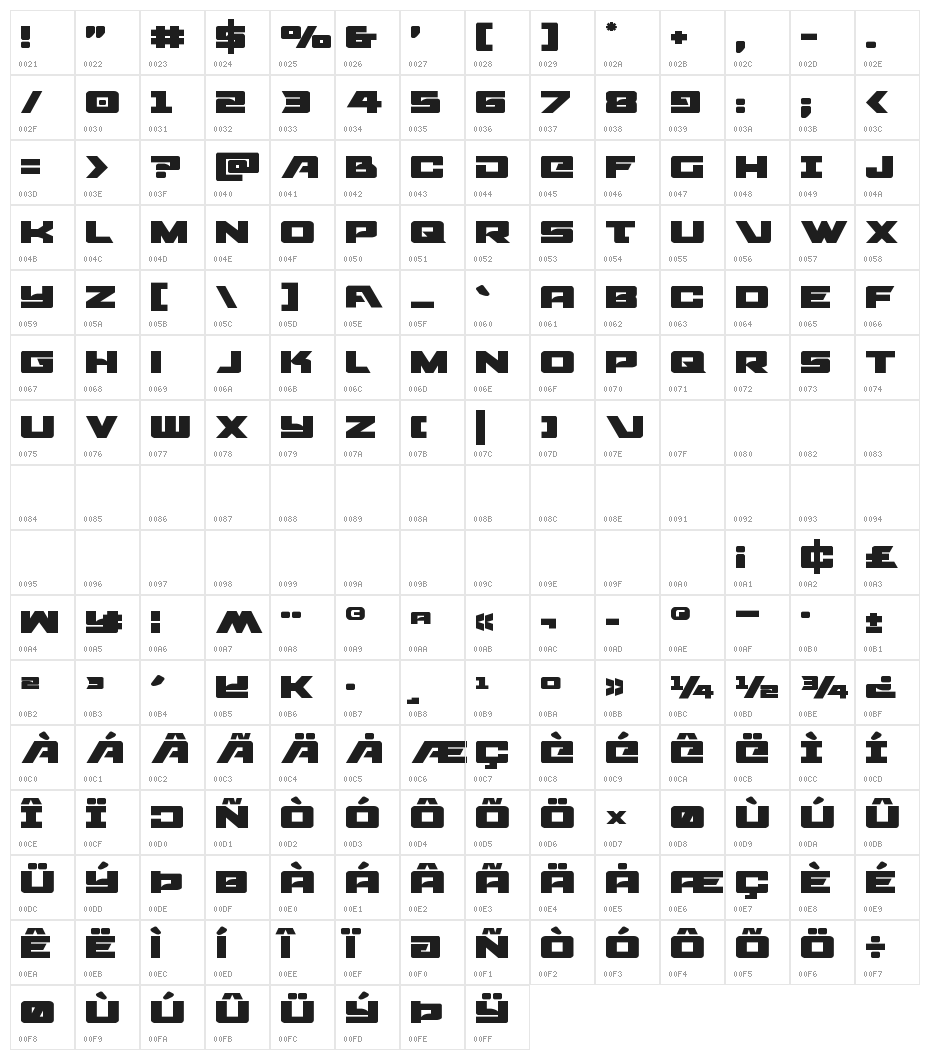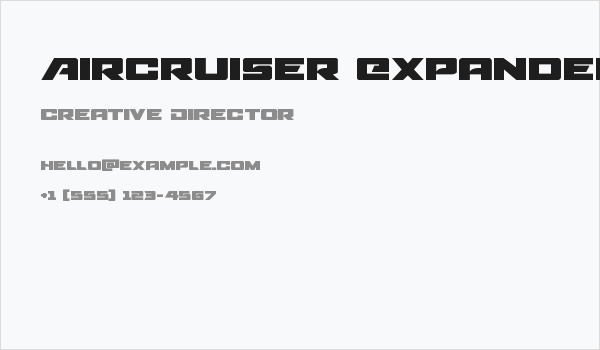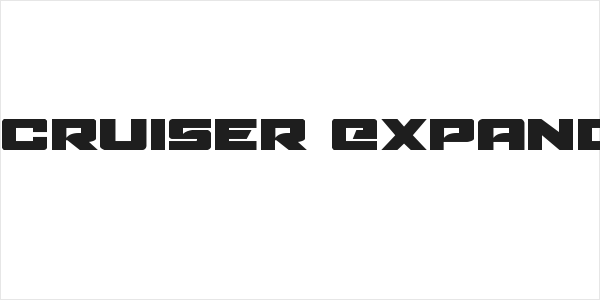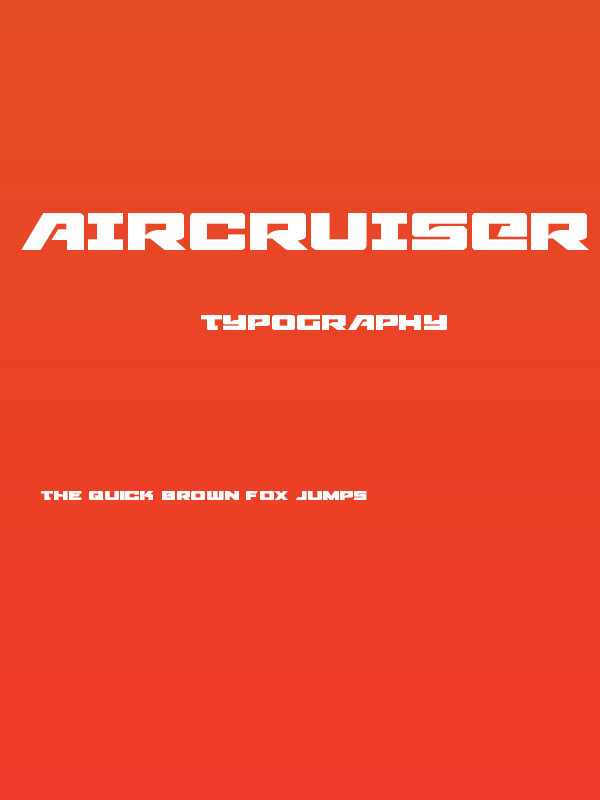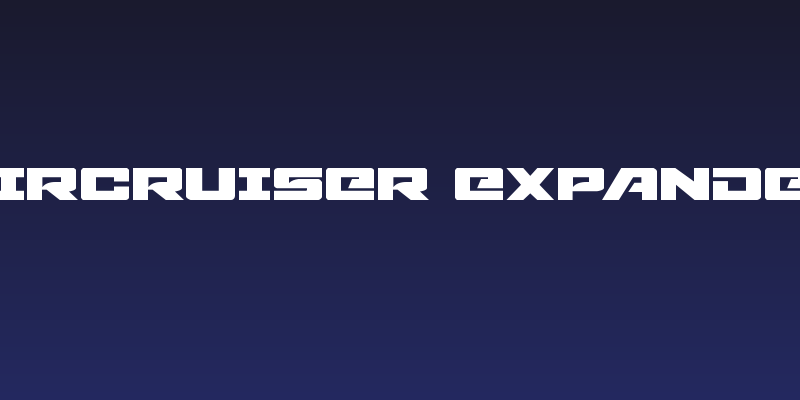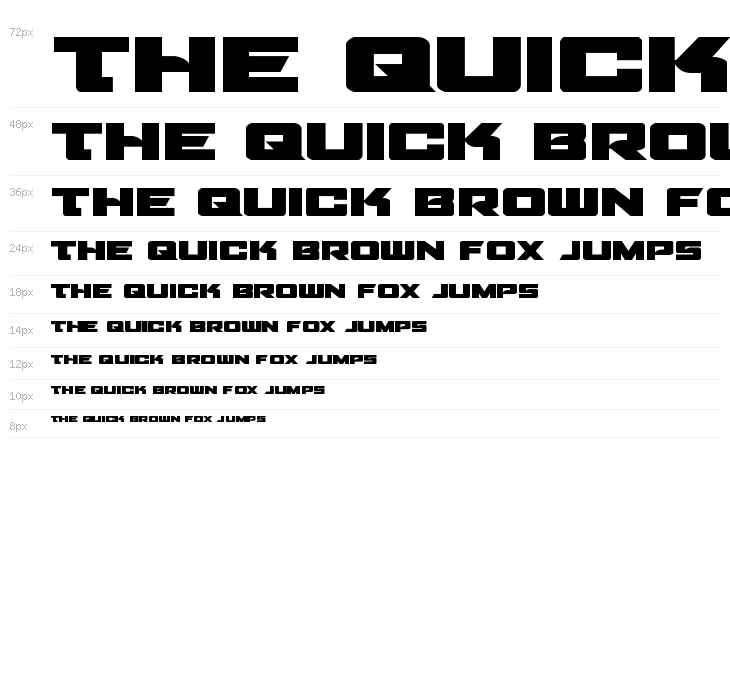
Aircruiser Expanded Font
Aircruiser Expanded Description
This font features a bold, geometric design with a futuristic and industrial feel. The characters are wide and blocky, with sharp angles and a consistent stroke weight that conveys strength and stability. The uppercase letters are particularly striking, with a uniform height and width that creates a cohesive and impactful appearance. The numbers and special characters maintain the same boldness and geometric style, ensuring consistency across all text elements. This font is highly legible and makes a strong visual statement, ideal for projects that require a modern and assertive typeface.
| Proposed Projects | Ideal for branding, posters, headlines, and any design requiring a strong, modern aesthetic. |